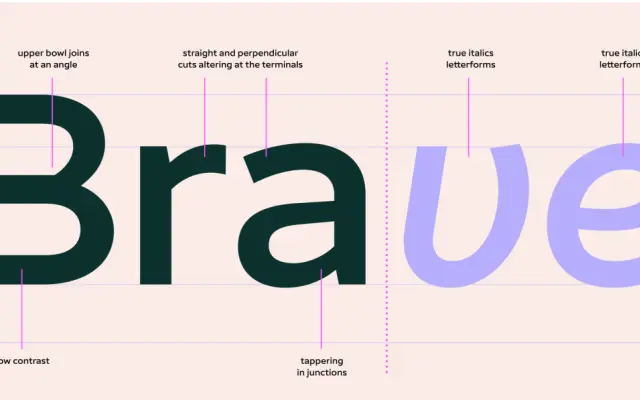
Matt
Fontfabric · Svetoslav Simov, Ani Dimitrova, Ivelina Martinova · 2024
A wide-proportioned geometric sans-serif from Fontfabric, evolved from their Intro family, with squared ovals and open terminals aimed at brand and interface work.
Released in 2024, Matt carries forward the geometry of Fontfabric's Intro with wider proportions, a high x-height and open terminals that keep letterforms legible at both headline and interface sizes. The family ships as 16 static styles across eight weights with matching italics, plus two variable fonts covering the full weight axis. Extended Latin and Cyrillic support across 130+ languages, alongside a broad OpenType feature set, gives it genuine range for international brand and digital projects.
Matt is a geometric sans-serif with squared ovals, open terminals, and wide proportions, placing it firmly in the geometric grotesque tradition, closely related to the Intro family from the same foundry.